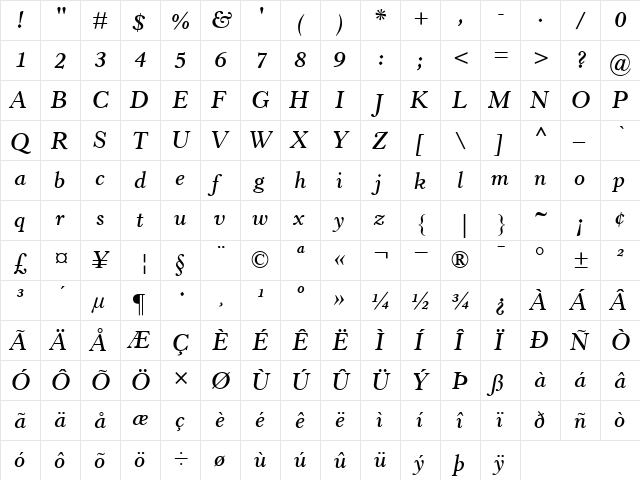
HorleyOldStyleMT-SemiBold Semi BoldItalic Font Preview
HorleyOldStyleMT-SemiBold Semi BoldItalic
Design Context for HorleyOldStyleMT-SemiBold Typeface
HorleyOldStyleMT-SemiBold brings classic typographic sensibility to the table — its serifs and measured letterforms reflect centuries of print heritage. Its italic angle brings a sense of urgency and motion to the letterforms. The heavy weight commands attention and anchors typographic hierarchies.
Pro Tip: Set HorleyOldStyleMT-SemiBold with slightly loose tracking in headlines to let each letterform's detail read clearly at display sizes.